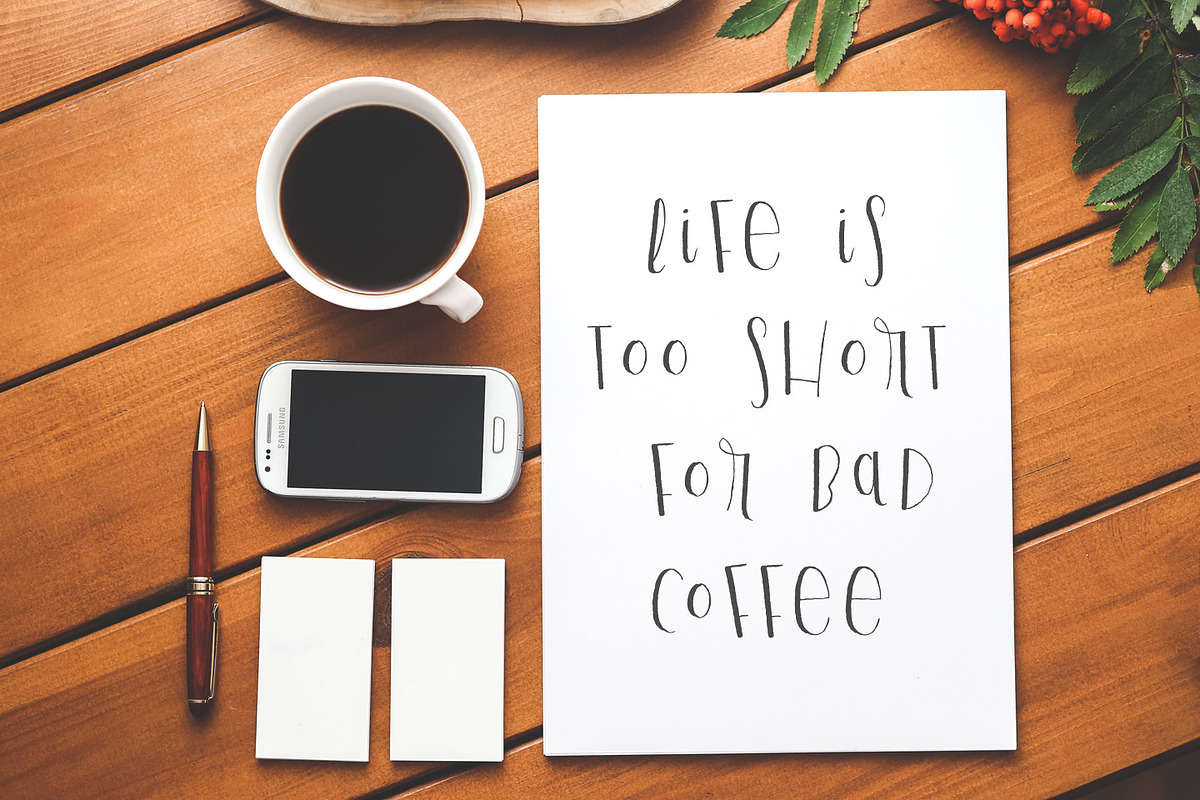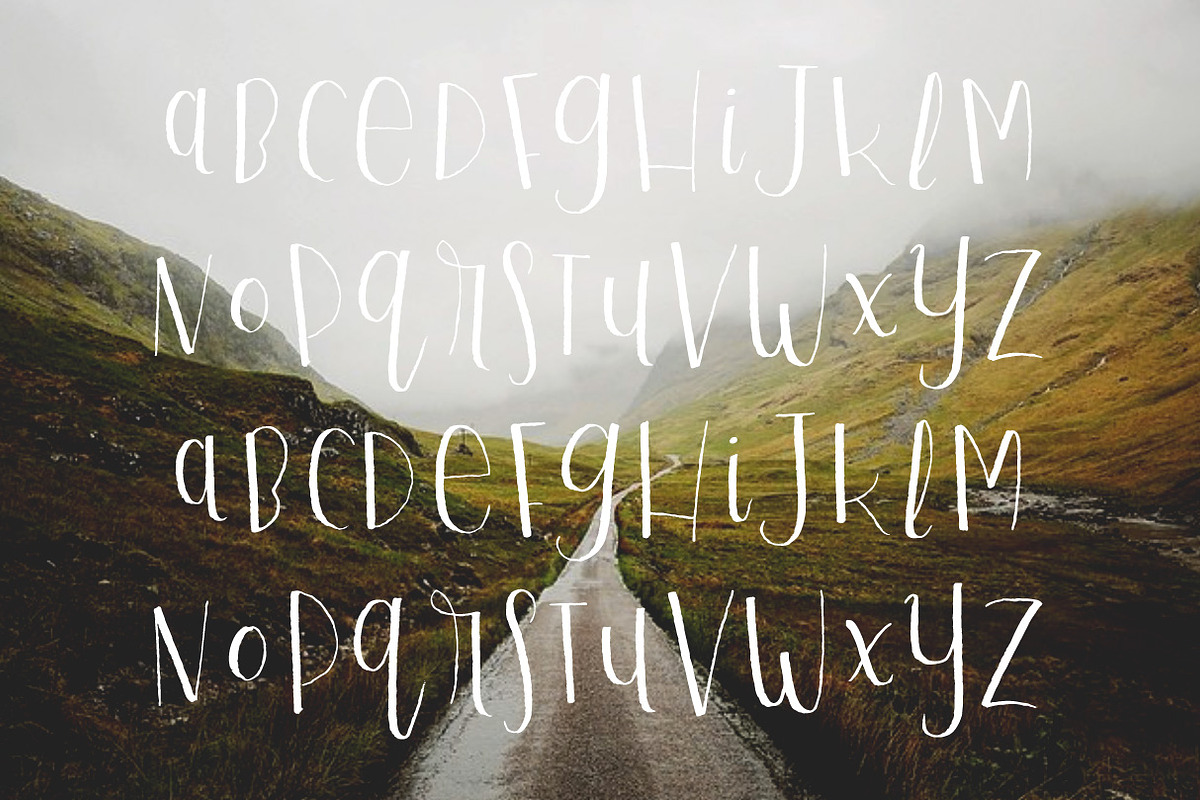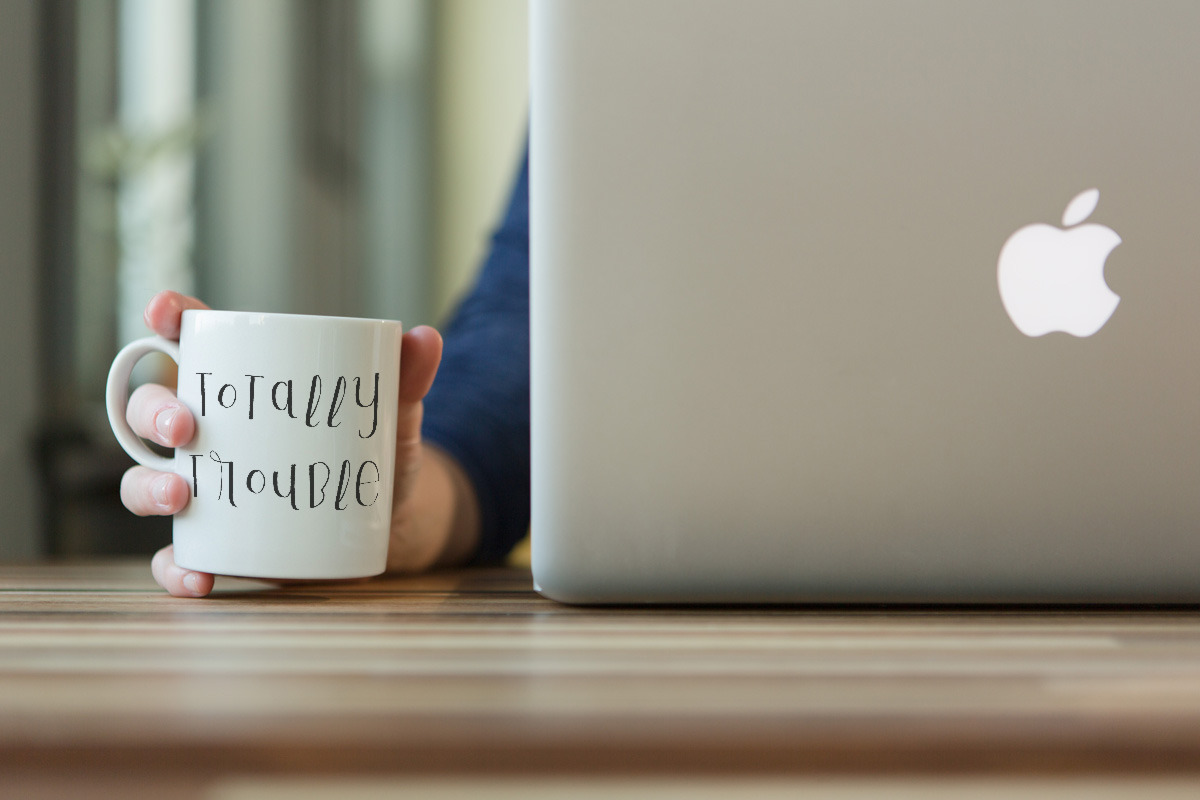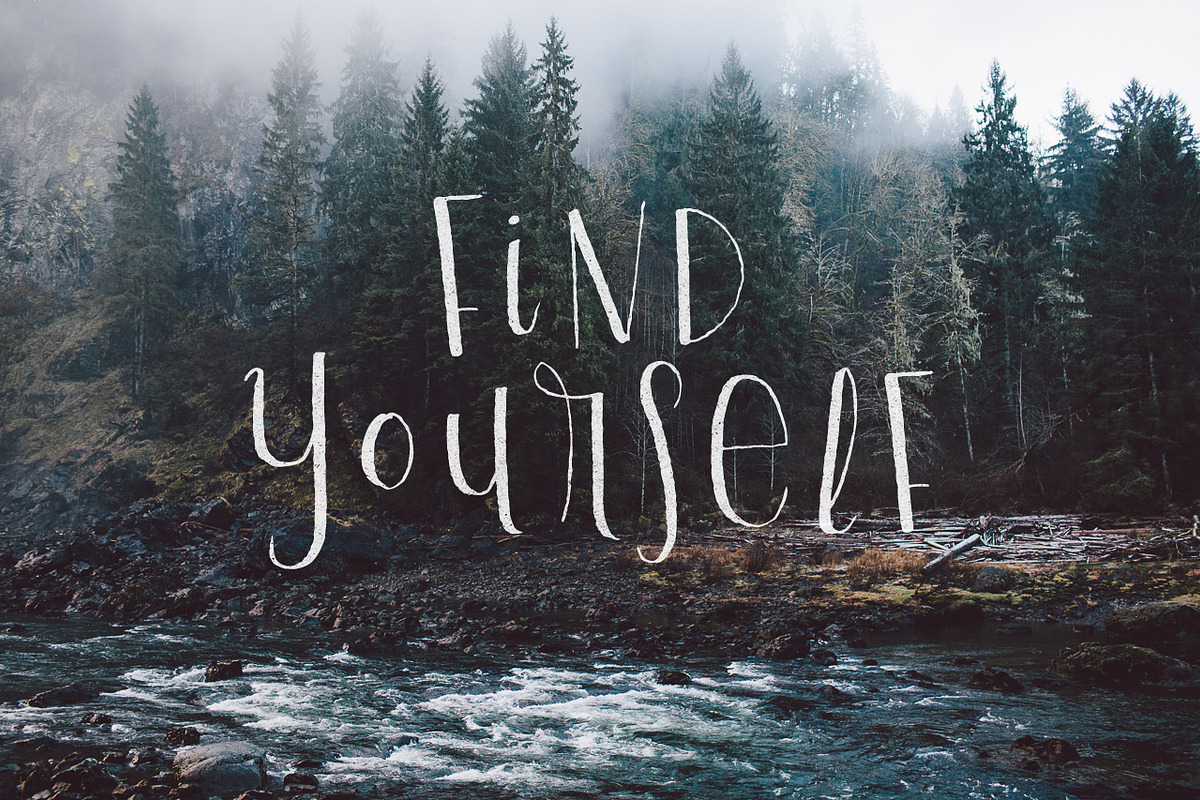
Playful Script Regular
Playful Script Regular by Out of Step Font Company is a font selected for branding, posters, packaging, typography.
- Use the lowercase letter set to access a full set of alternate glyphs positioned at a different angle.
Why Playful Script Regular is worth a look
Playful Script Regular by Out of Step Font Company fits naturally into Branding, posters, packaging, typography.